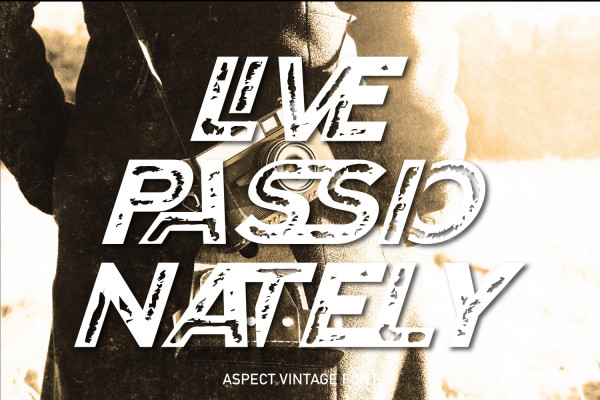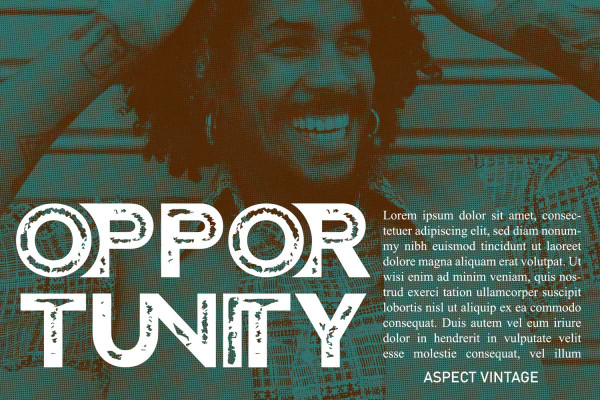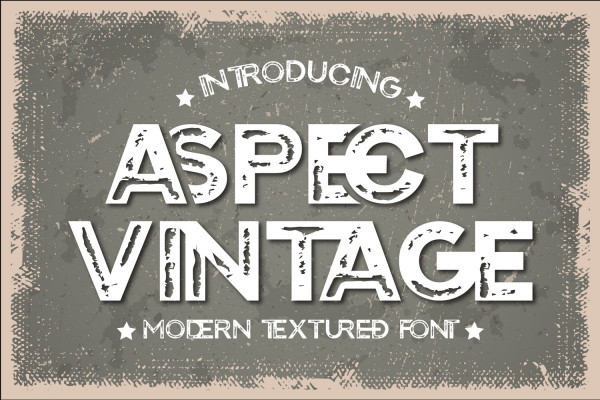
Aspect Vintage Font
Aspect Vintage Font – it is idea for vintage designs, the font with simple, minimalistic, retro and vintage feel character set. We hope you will love this font and a good addition to your collection. This font is perfect for people looking for vintage aesthetic or logo-type. Suitable for any graphic designs such as branding materials, t-shirt, print, business cards, logo, poster, t-shirt, photography, quotes etc.
Aspect Vintage was built with OpenType features and includes 100 ligatures, alternate, numbers, punctuation, and it also supports other languages.
AC AD AL AN AR AS AT AU AV BE CA CE CH CO CT DE DI EA EC ED EE EL EM EN EP ER ES ET FE FO FR GE HA HE HI HO IE IC IL IN IO IR IS IT JU KE LA LE LI LL LO LY MA ME MI NC ND NE NG NO NT NS OC OF OM ON OO OP OR OT OU OW PA PR RA RD RE RI RO RS RT SE SH SI SO SS ST TA TE TH TI TO TR TT UM UN UR VE WI WO